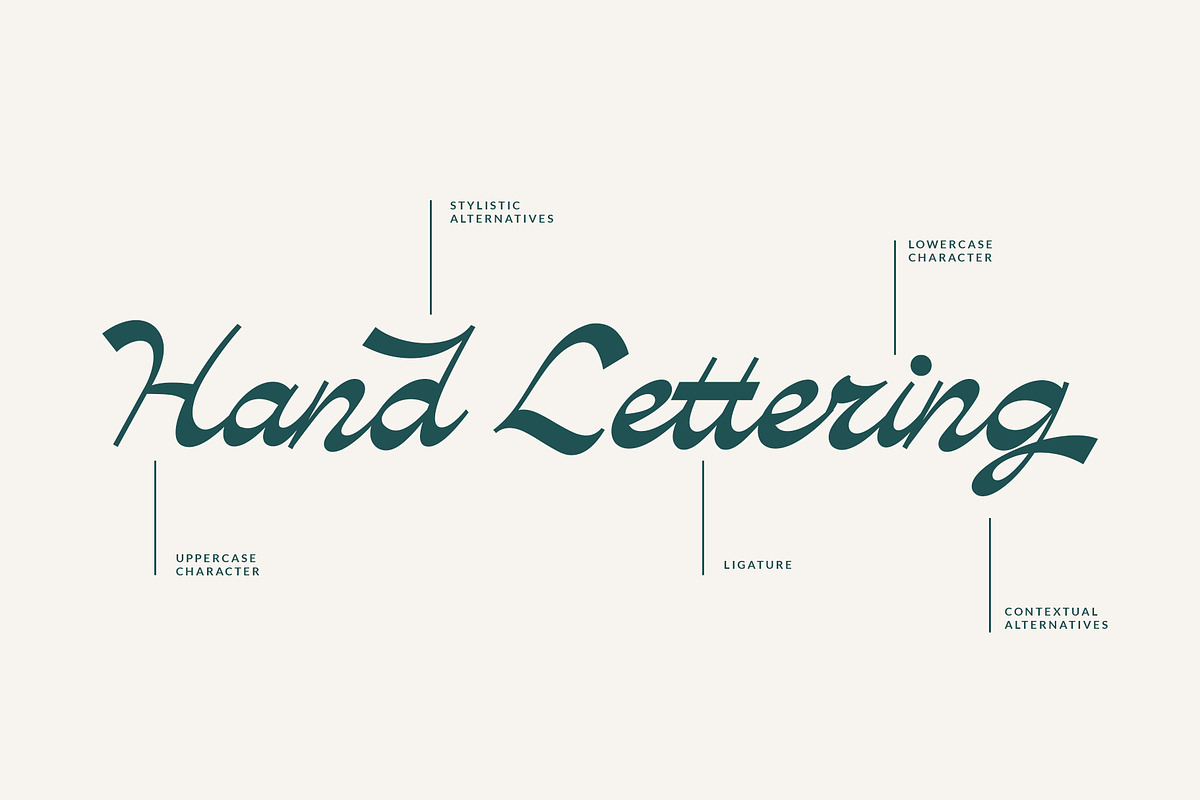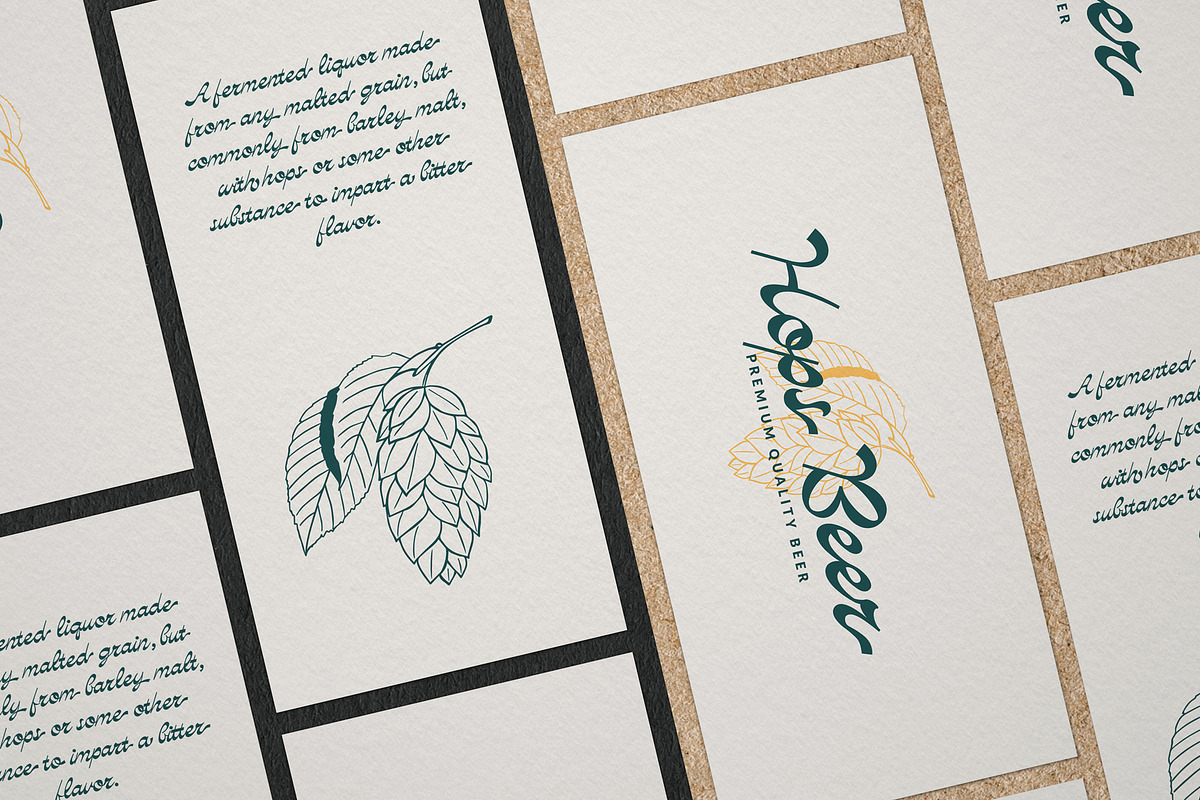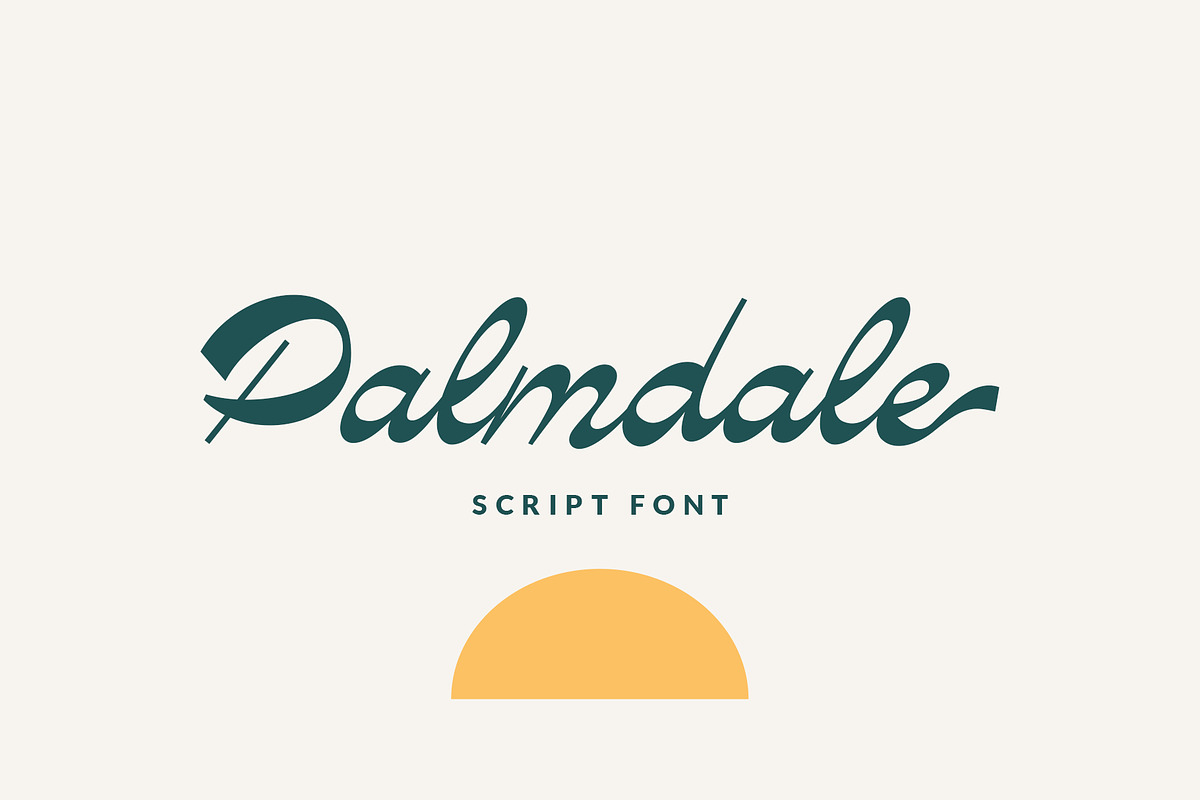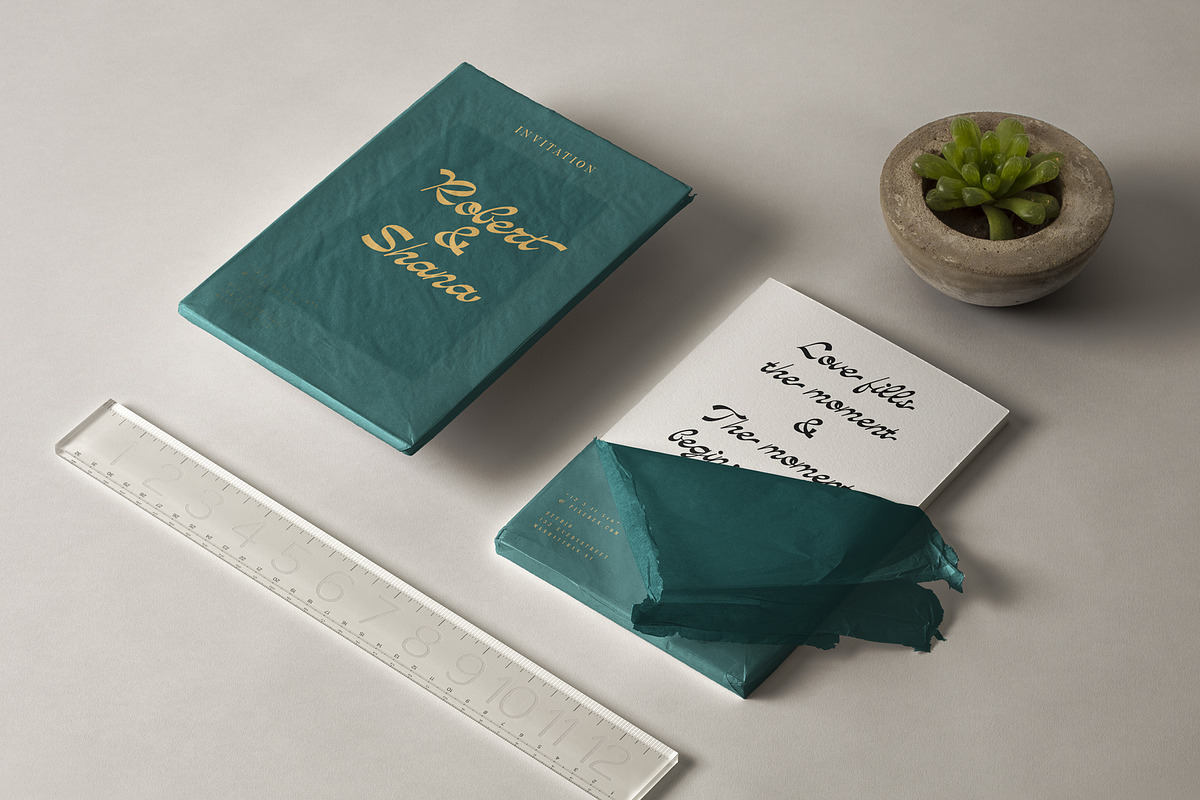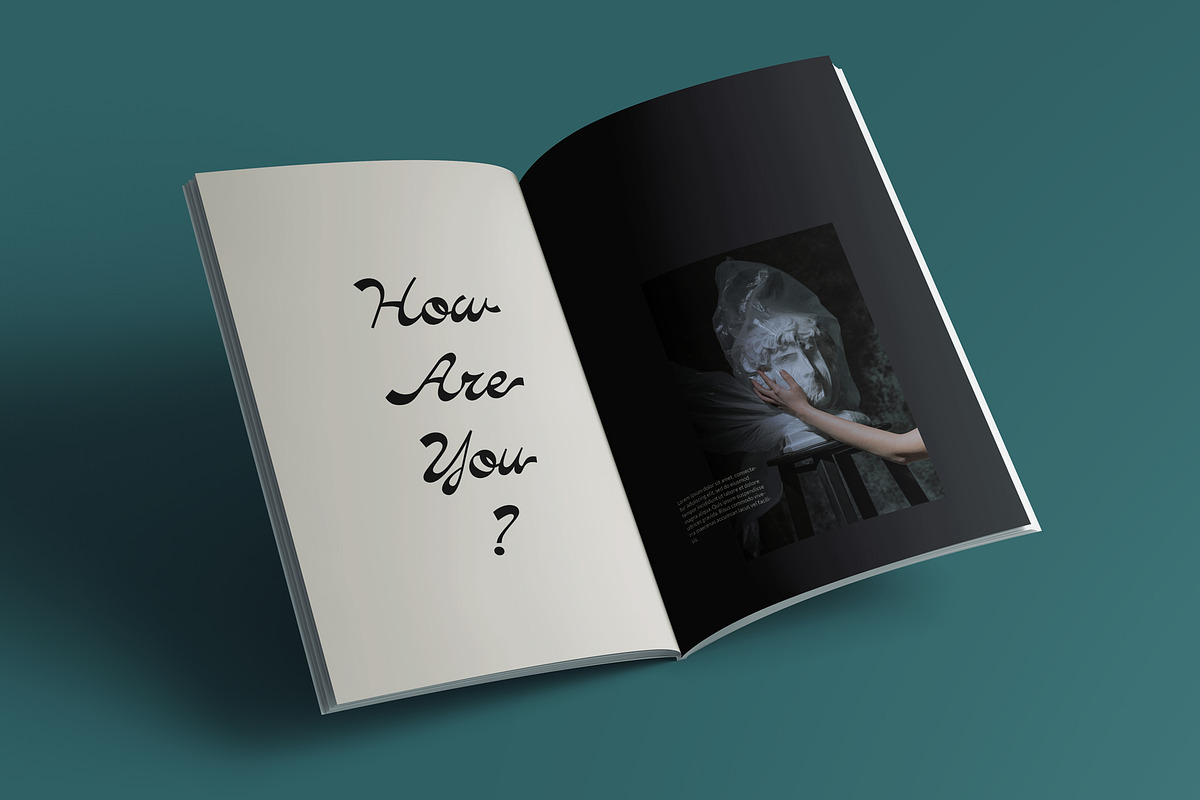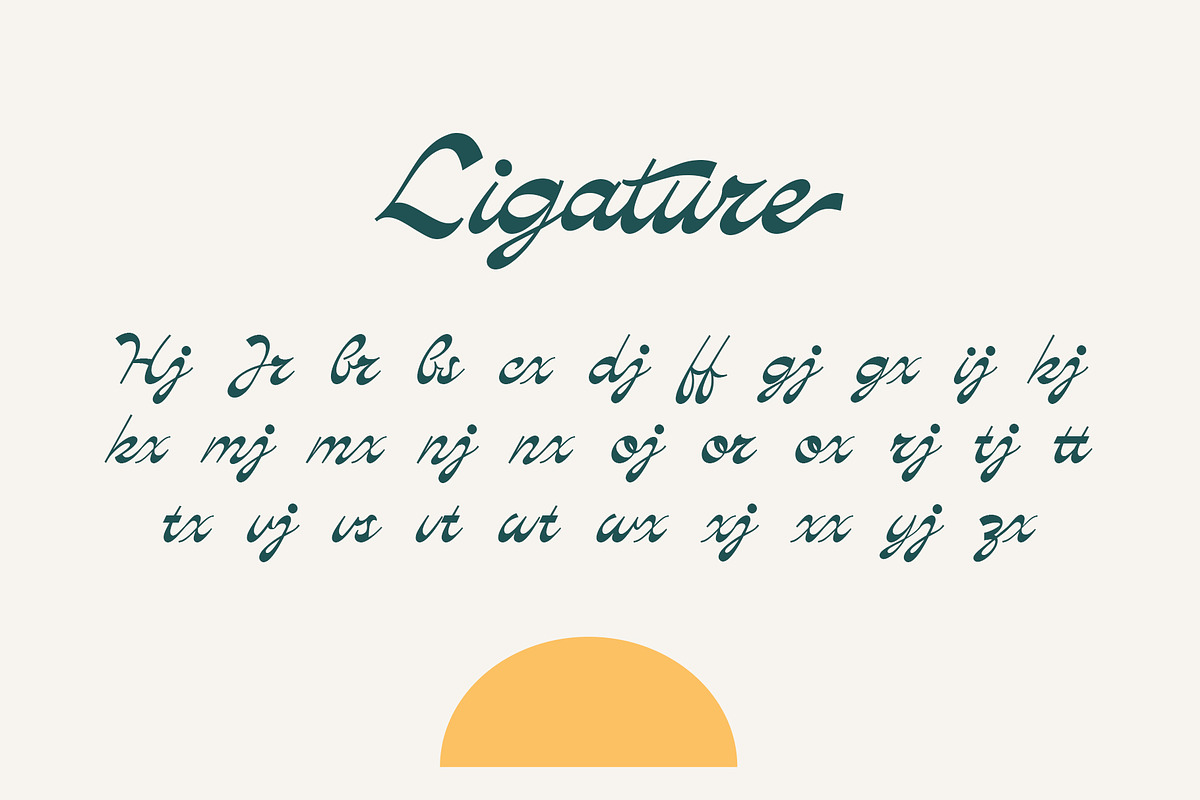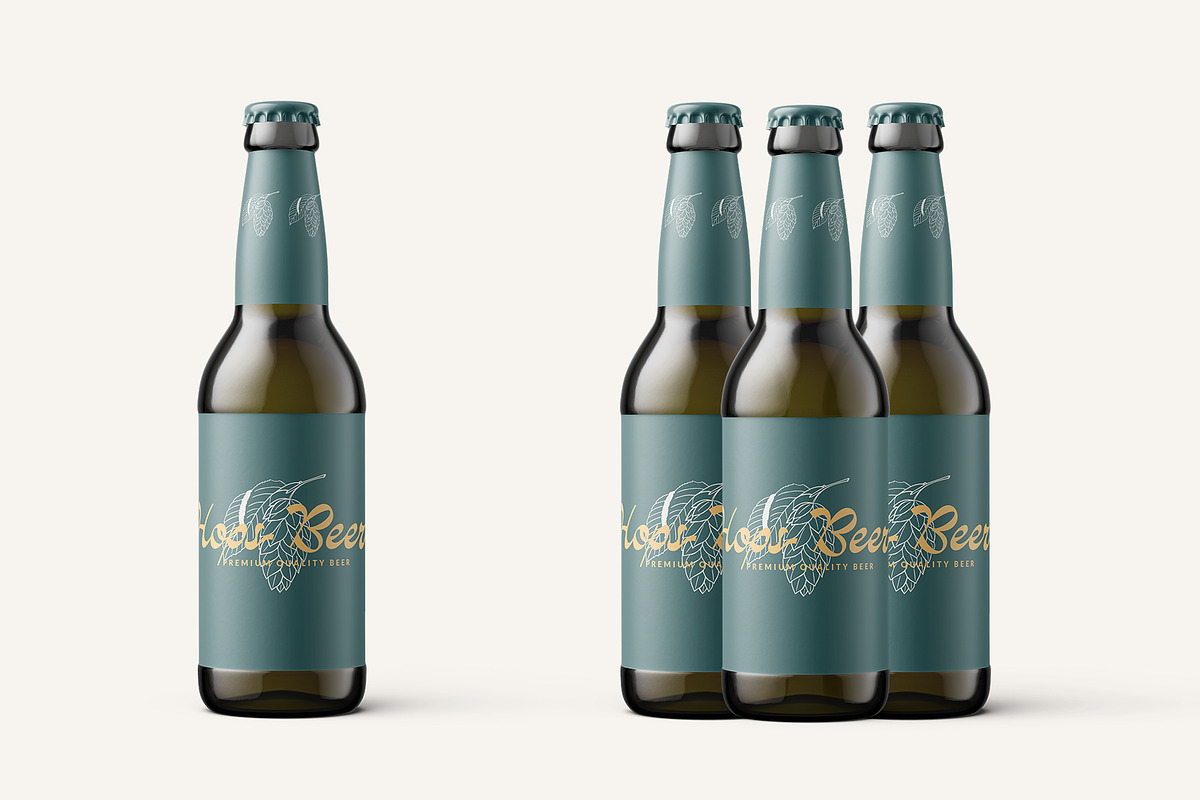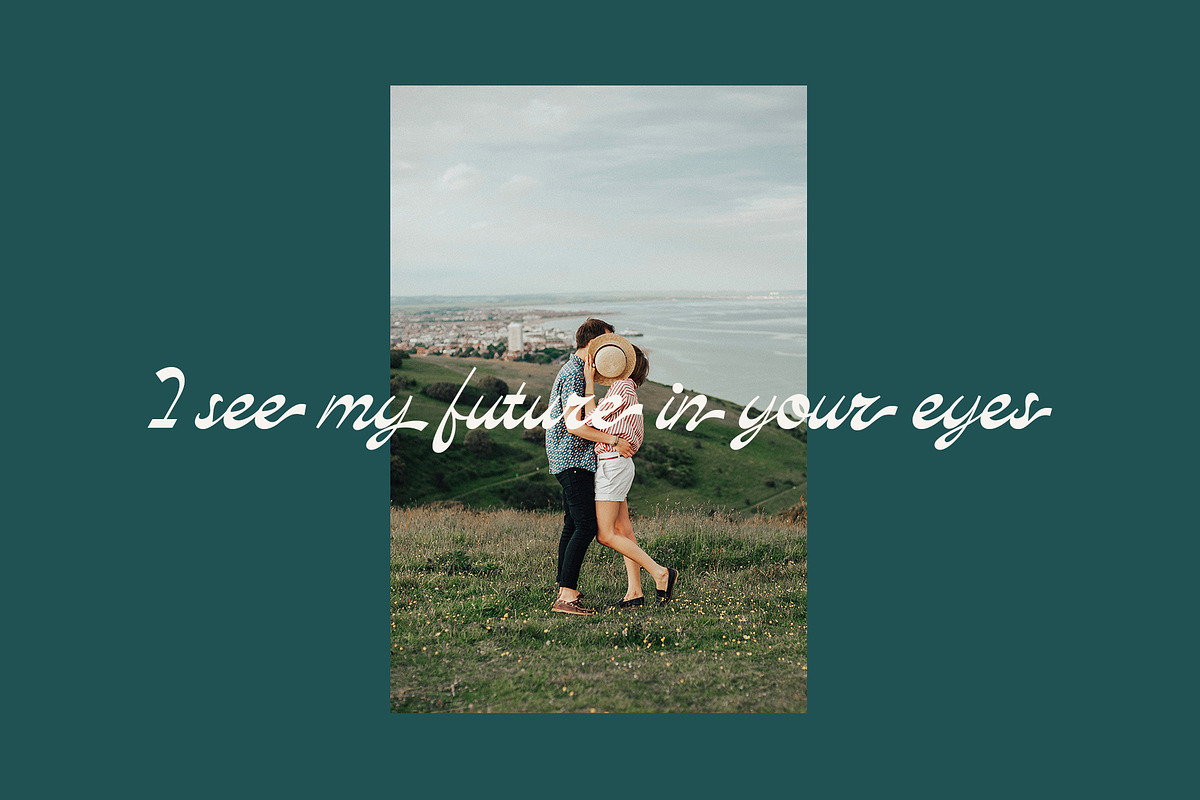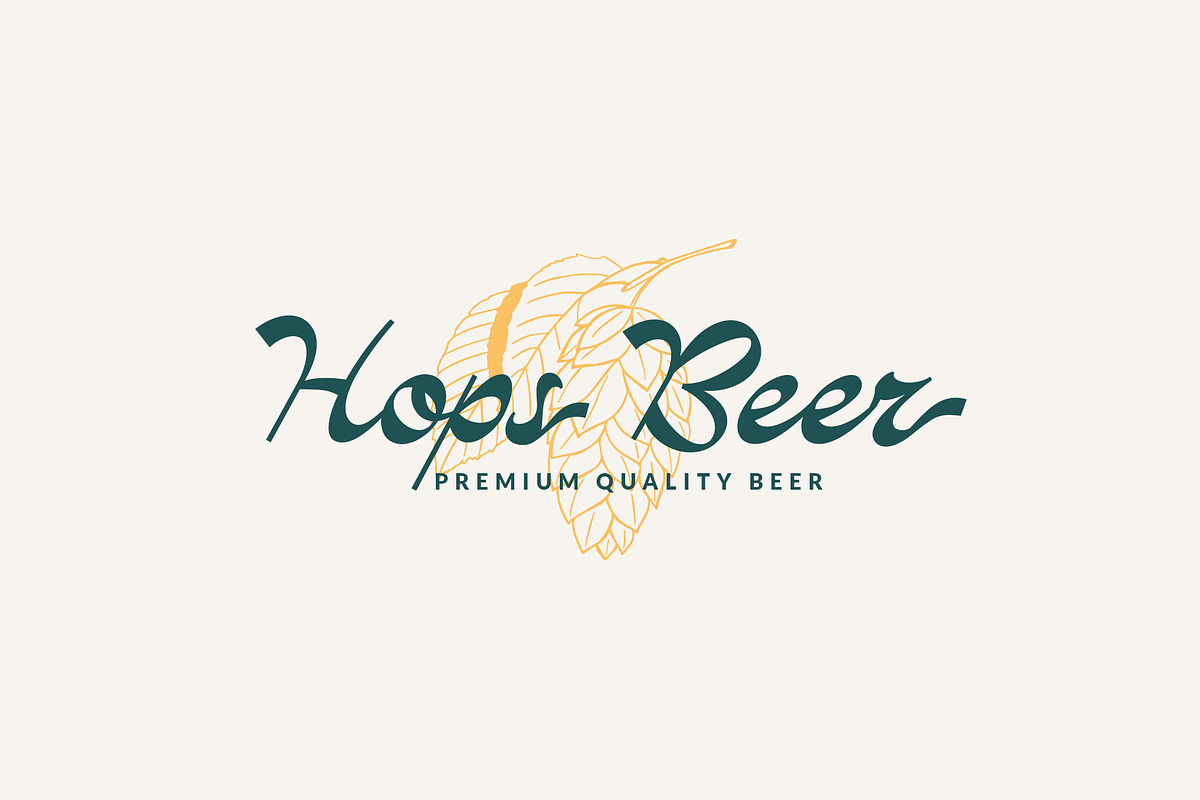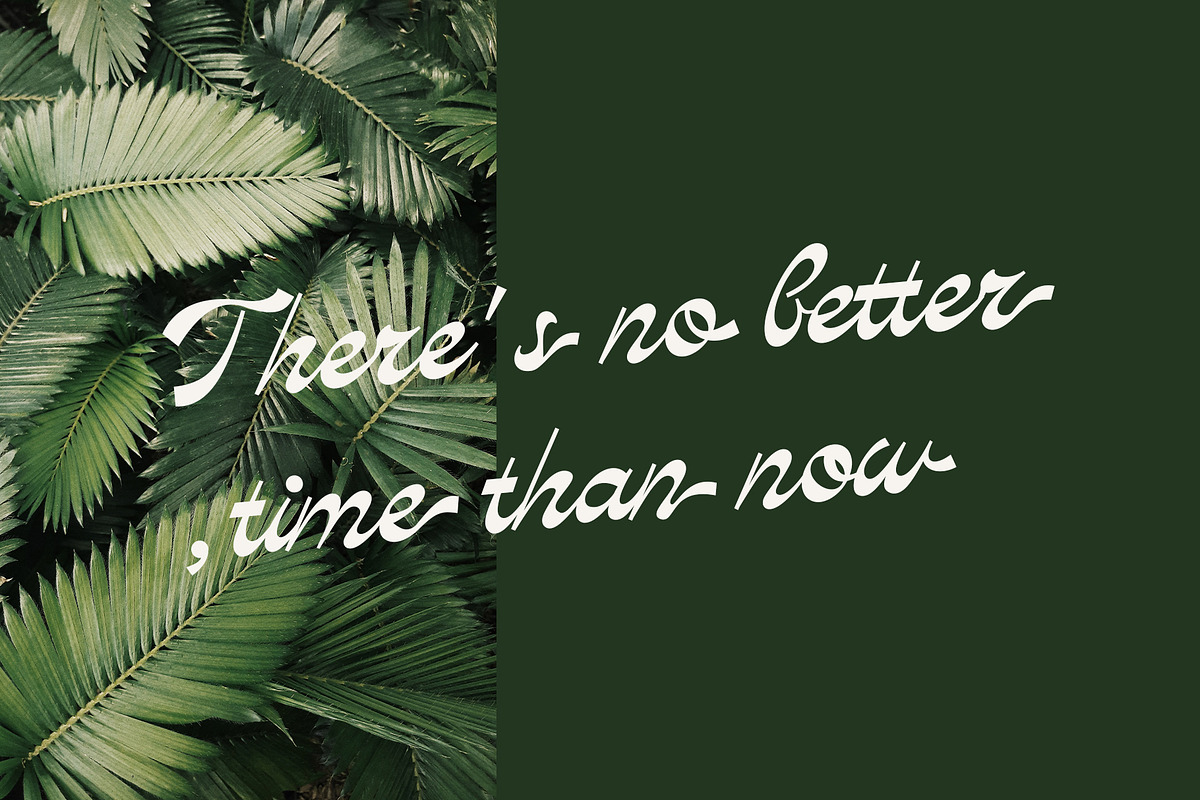
Palmdale Script
Palmdale is a bold style font script. elegant, simple and a little vintage look. This font is equipped with open types such as: ligature, Stylistic Sets, and also the final Contextual Alternative . Besides this font also supports multi languages.
You can mix and match your best combination. And besides this font is suitable for your design needs such as: poster design, magazines, logos, branding, packaging and much more.